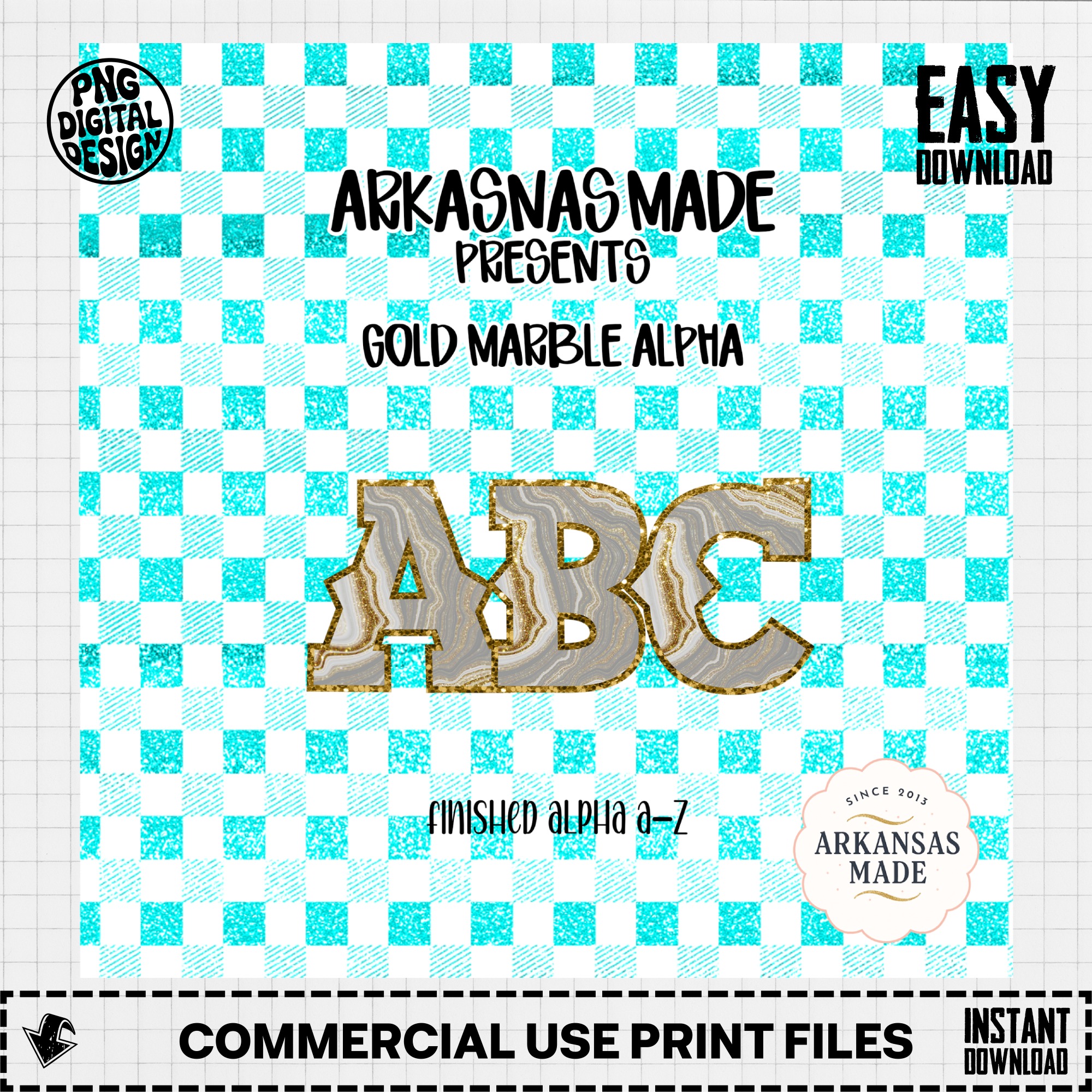
Elevate your creative projects with our stunning Gold Marble Alpha PNG collection. This exquisite digital download features a complete alphabet set from A to Z, perfect for adding a touch of elegance and sparkle to your designs. Each letter showcases a sophisticated gold marble texture outlined with shimmering glitter, ensuring your crafts stand out beautifully.
– Features a luxurious gold marble design with glitter accents.